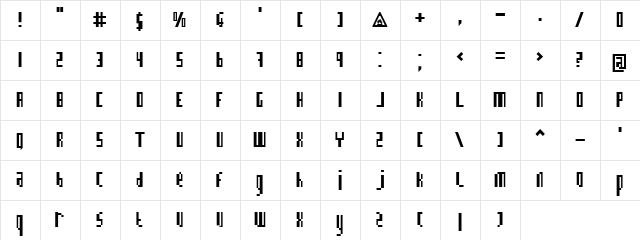
BN Information Regular Font Preview
BN Information Regular
Design Context for BN Information Typeface
BN Information takes a measured approach to typography — its balanced proportions and neutral character make it a reliable workhorse for both digital and print work.